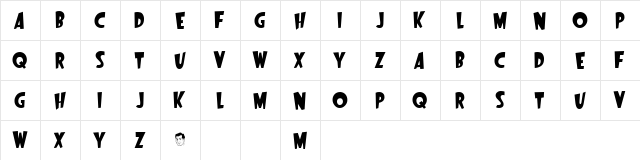
Startling Regular
Design Context for Startling Typeface
Startling is a composed and adaptable typeface that performs quietly and consistently across a wide range of design contexts.